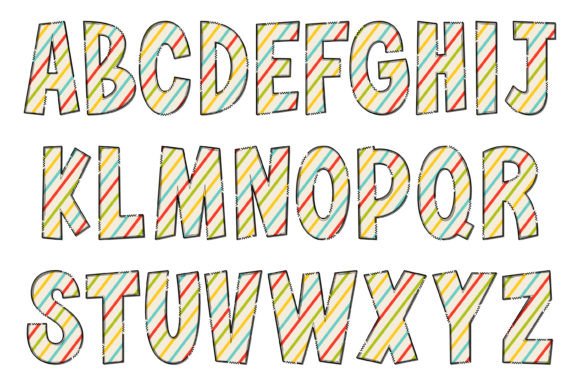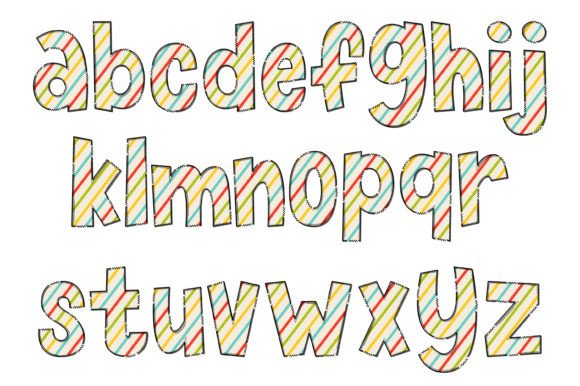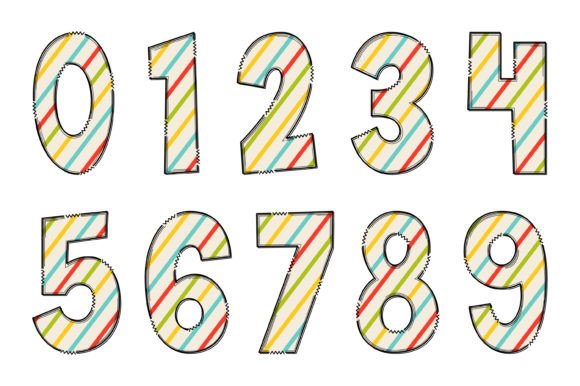
Introducing the Colorful Line Font: Adding a Playful Touch to Your Designs
Are you looking for a font that can add a playful and artistic feel to your designs? Look no further than the Colorful Line Font! This whimsical font is perfect for designs that require a fun and engaging tone, such as children’s books, posters, invitations, greeting cards, and more.
What Makes the Colorful Line Font Special?
The Colorful Line Font is a unique and eye-catching font that is sure to capture the attention of your audience. Its colorful and playful design makes it perfect for designs that require a youthful and energetic feel. The font is easy to read, creating an engaging reading experience for young audiences.
Use Cases for the Colorful Line Font
This font is versatile and can be used in a variety of design projects, including:
- Children’s books: Add a playful touch to your storybook designs with the Colorful Line Font.
- Posters: Create eye-catching posters for kids’ events, parties, or educational purposes.
- Invitations: Design fun and playful invitations for kids’ parties, birthdays, or special events.
- Greeting cards: Add a personal touch to your greeting cards with the Colorful Line Font.
Why Choose the Colorful Line Font?
The Colorful Line Font offers a range of benefits, including:
- Unique and eye-catching design
- Easy to read and engaging for young audiences
- Versatile and can be used in a variety of design projects
Tips for Using the Colorful Line Font
Here are some tips for getting the most out of the Colorful Line Font:
- Use it for headlines or titles to add a playful touch
- Pair it with a simple font for body text to create contrast
- Experiment with different colors and designs to make it your own
The Colorful Line Font is a fun and playful font that is perfect for designers and crafters looking to add a playful touch to their designs. With its unique and eye-catching design, ease of use, and compatibility with popular design software, this font is sure to become a favorite in your design arsenal.